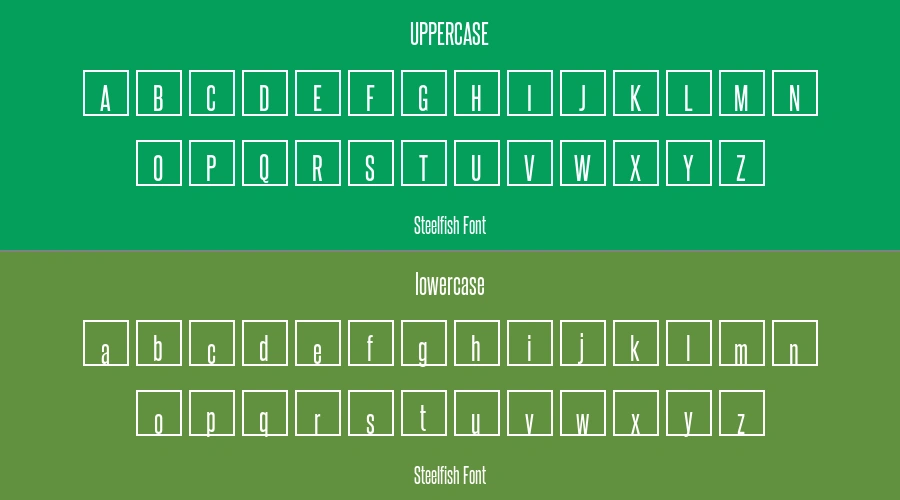
About Steelfish Font
Steelfish Font represents a sophisticated approach to type design, balancing elegant proportions with consumer engagement. Perfect for historical publications, this font family showcases impressive clarity and traditional values throughout its character set. Designers appreciate its versatility and reliability.
Designers will appreciate nuanced touches including consistent strokes and oldstyle figures, adding sophistication to any project. These features become apparent in featured quotes, where file optimization matters most. The careful treatment of tail length and generational relevance ensures optimal performance.